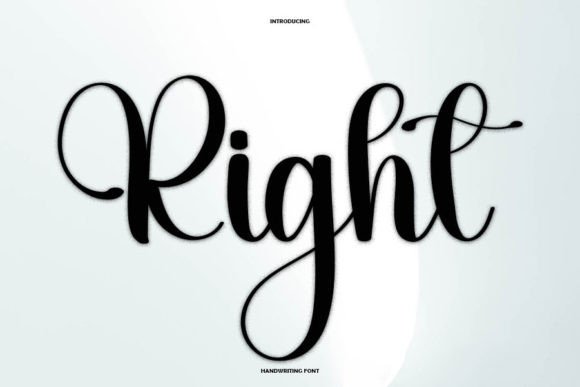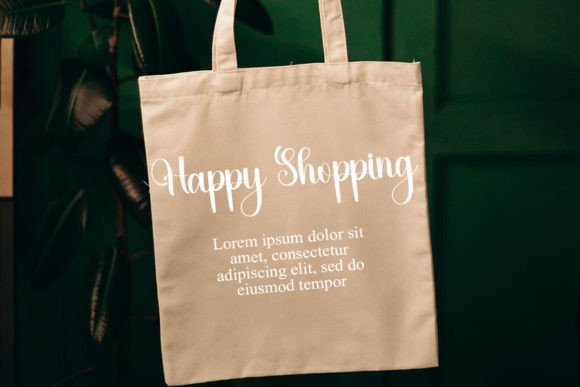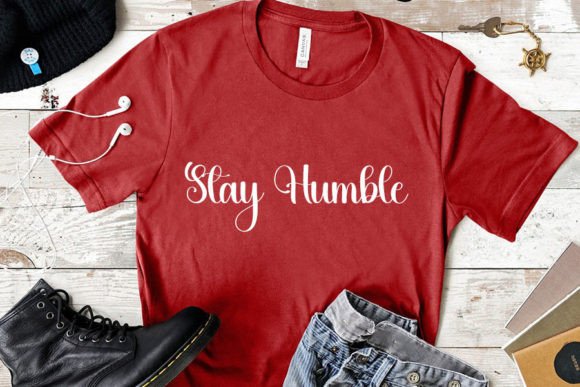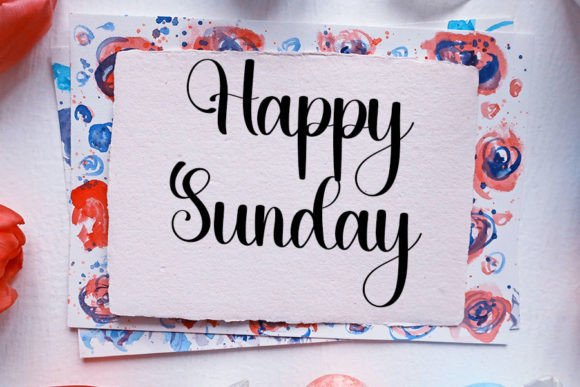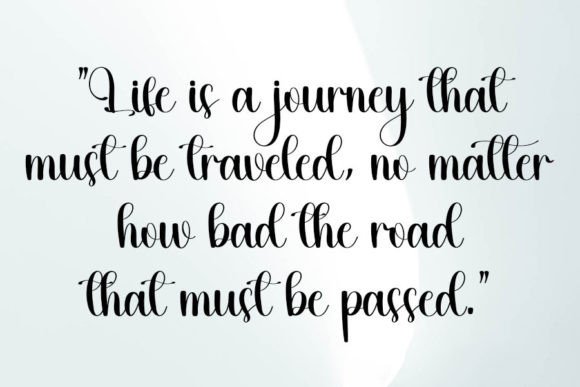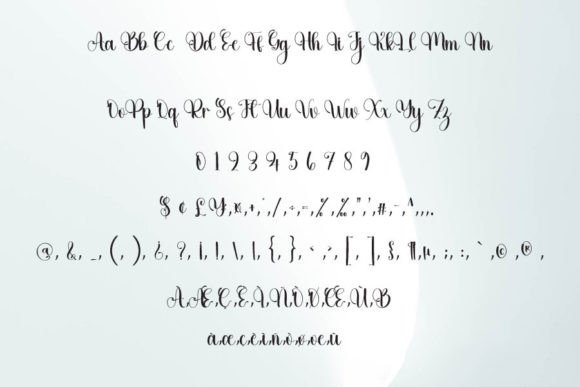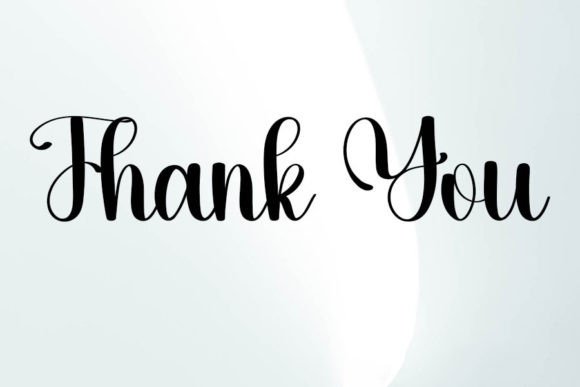
Right Font
About Right Font
Right Font is a clean and approachable handwritten typeface designed to add charm and warmth to any design. Its smooth strokes and relaxed style give off a personal and inviting vibe, making it a perfect fit for both professional and personal use.
Whether you’re designing for digital media or printed materials, RightFont adapts effortlessly. It looks great on greeting cards, branding projects, presentations, and creative digital layouts. This font brings a human touch to your work, helping your content stand out while remaining easy to read.
Why Choose Right Font?
Here’s what makes RightFont a great addition to your type collection:
• User-friendly style – Its simplicity makes it ideal for all ages and audiences.
• Handmade appeal – The hand-drawn appearance adds personality without compromising clarity.
• Design flexibility – Works beautifully across different platforms and print materials.
• Balanced letterforms – Ensures clean readability, even in small text sizes.
With this font, your designs will feel both lively and professional.
Best Uses for Right Font
You can use RightFont to elevate many types of creative work, such as:
• Greeting and holiday cards
• Craft projects and DIY art
• Product labels and stickers
• Invitations and event signage
• Instagram quotes and social media posts
• Educational resources and worksheets
• Children’s books and school content
No matter the setting, RightFont adds a joyful, handcrafted finish that draws attention in all the right ways.